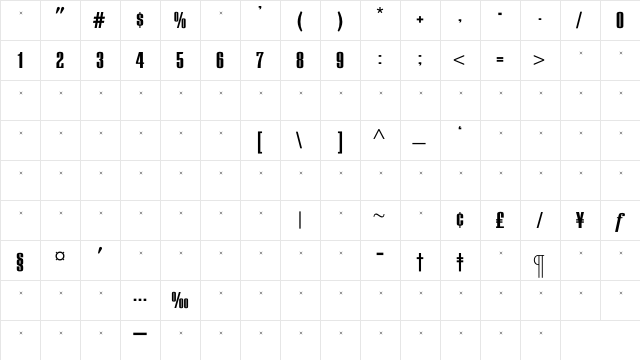
Complete EuropaGrotesqueExtraBoldTab Regular glyph index. Displaying only characters natively supported by EuropaGrotesqueExtraBoldTab Regular font.
EuropaGrotesqueExtraBoldTab is a composed and adaptable typeface that performs quietly and consistently across a wide range of design contexts. Its bold stroke weight gives it real presence on the page.